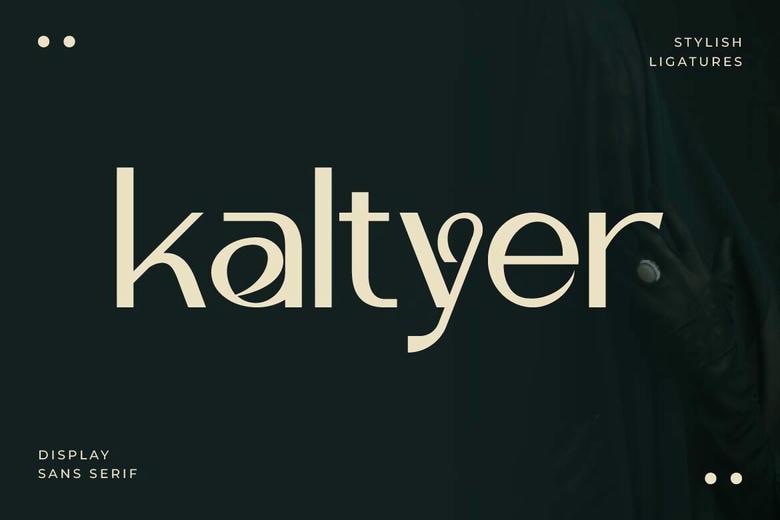
Kaltyer Font
Kaltyer is a display typeface that adds elegance, confidence, and a modern touch to your designs. Its refined letterforms, balanced proportions, and unique style help your typography stand out with a sophisticated look.